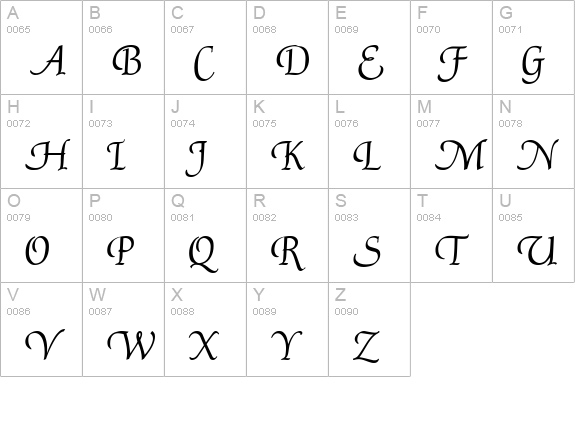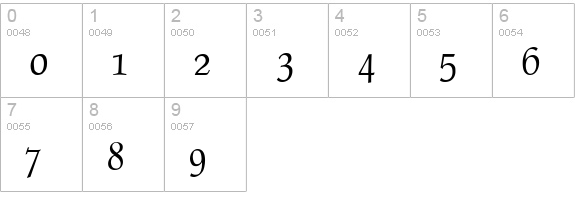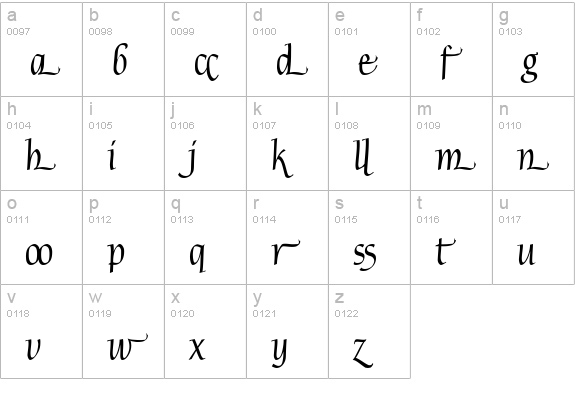
Plymouth Xtras font is a versatile and stylish typeface that exudes a sense of modern sophistication. With its clean lines and elegant curves, this font is perfect for a wide range of design projects, from branding to editorial design. The sleek and contemporary look of Plymouth Xtras font will instantly elevate any project and give it a polished and professional finish. What's even better is that Plymouth Xtras font is available for free download at FontsMarket.com. Now you can access this premium font without breaking the bank. Whether you're a seasoned designer looking to add a fresh touch to your work or a novice designer just starting out, Plymouth Xtras font is a must-have in your font collection. Download it now and take your design projects to the next level!